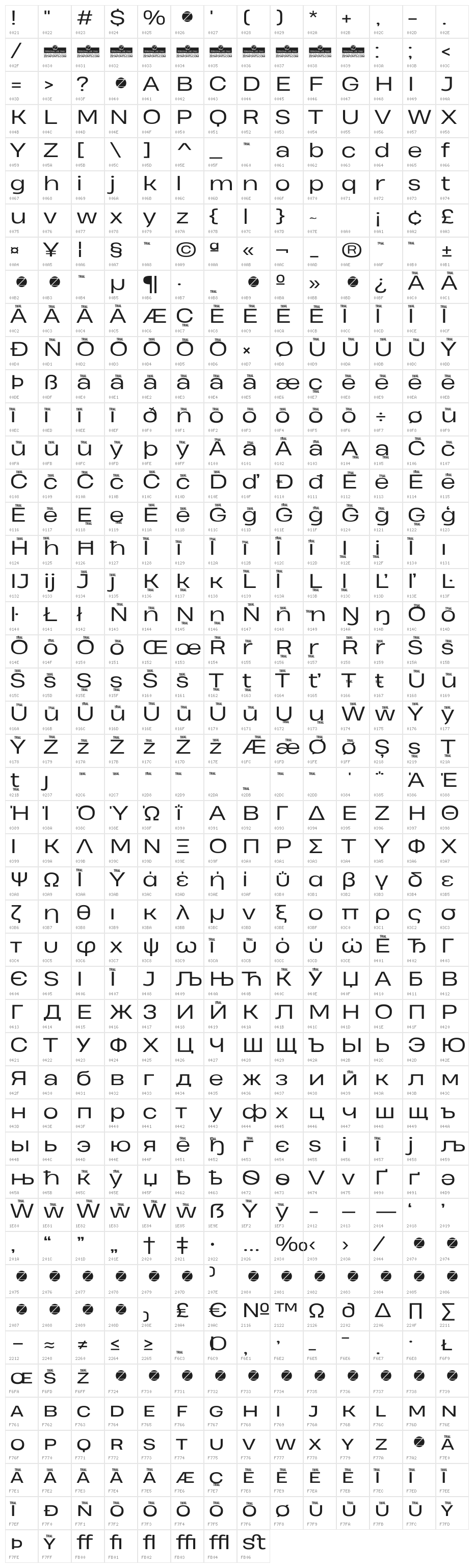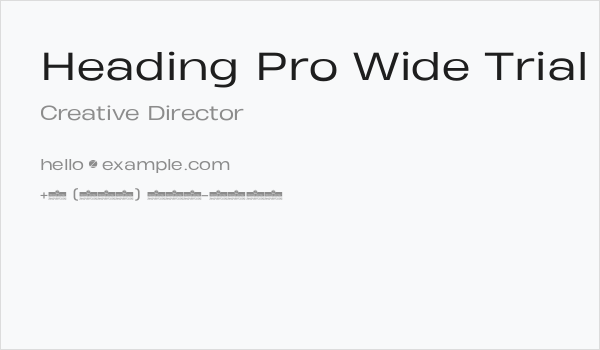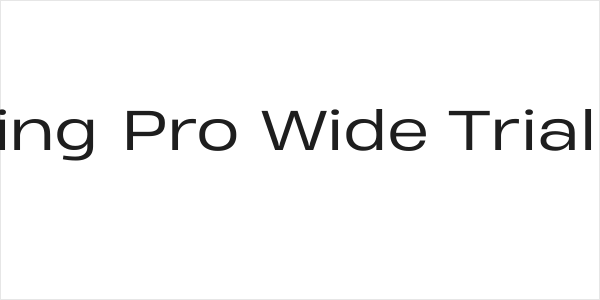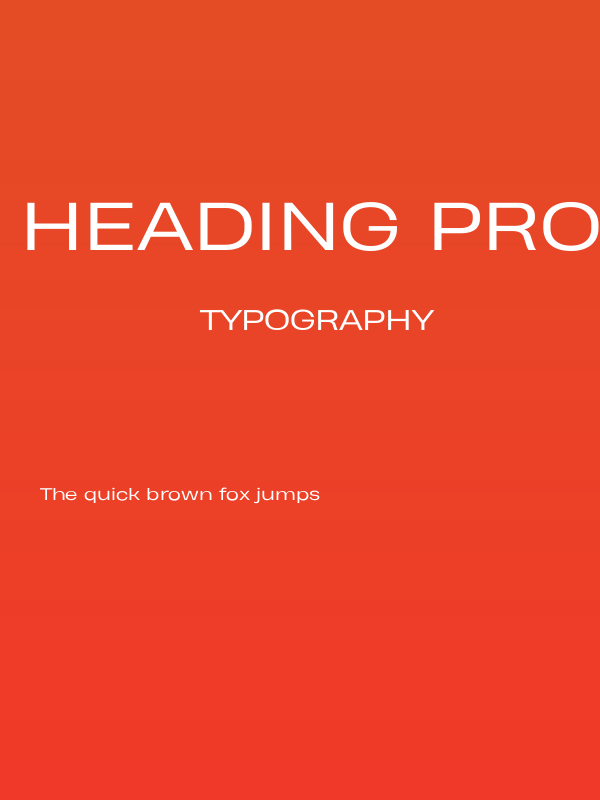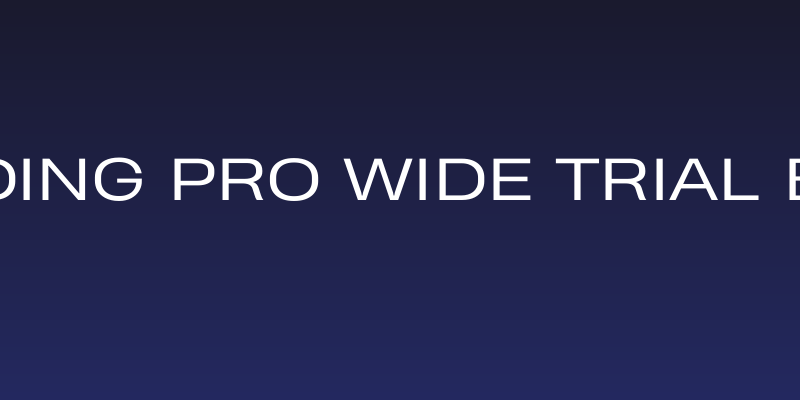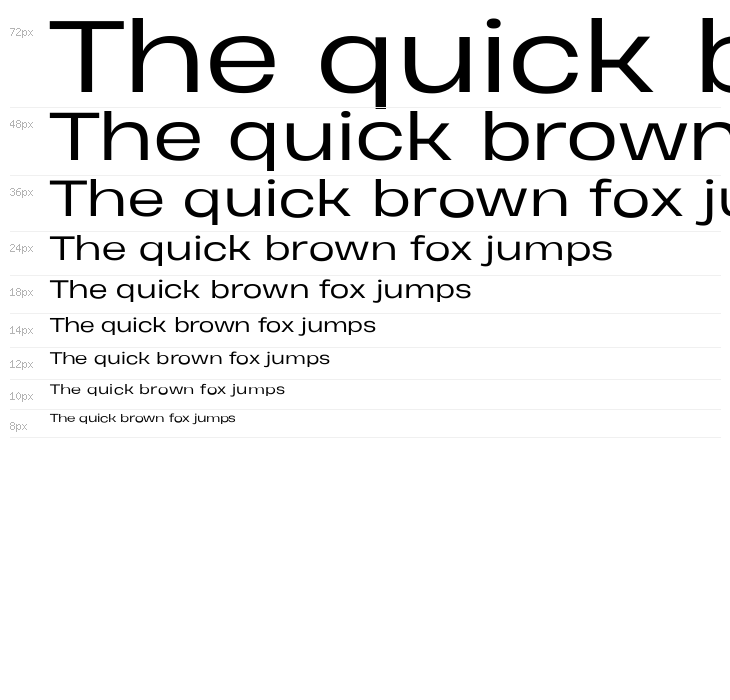
Heading Pro Wide Trial Book Font
Heading Pro Wide Trial Book Description
This font features a clean and modern sans-serif style with a wide stance, making it highly legible and suitable for various design applications. The uppercase and lowercase letters are well-proportioned, with a consistent stroke width that gives a uniform appearance. The characters are slightly rounded, adding a touch of softness to the overall look. The numerals and special characters are designed to match the letterforms, ensuring a cohesive appearance across all text elements. This font is versatile and can be used in both digital and print media.